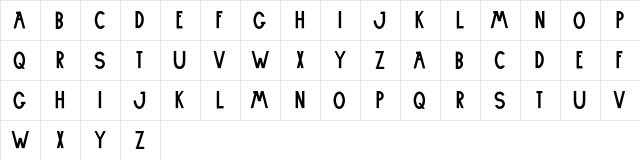
Embxz Regular
Design Context for Embxz Typeface
Embxz takes a measured approach to typography — its balanced proportions and neutral character make it a reliable workhorse for both digital and print work.